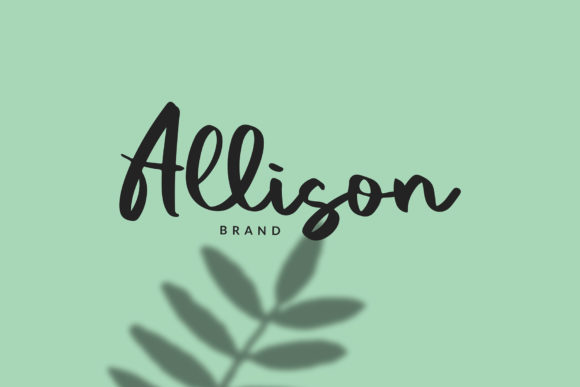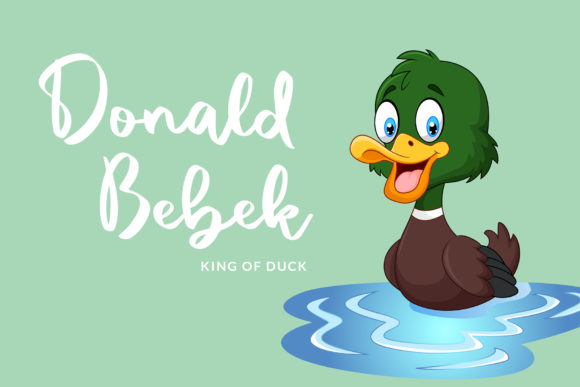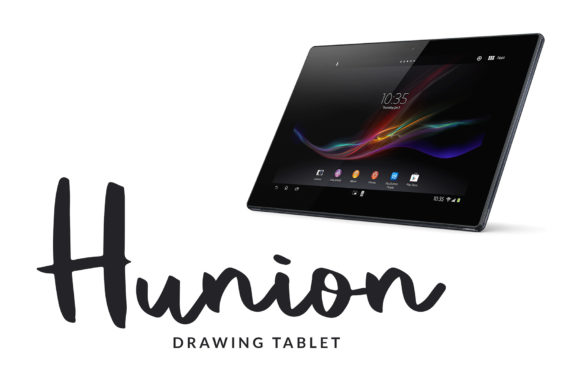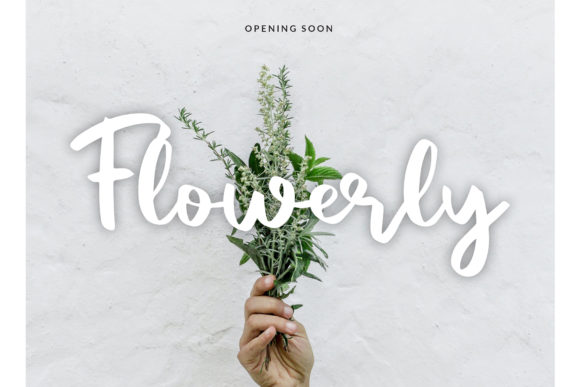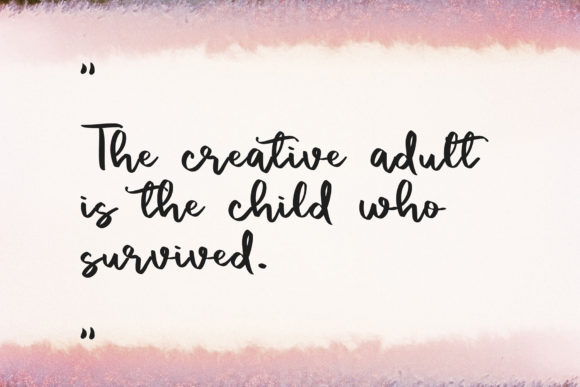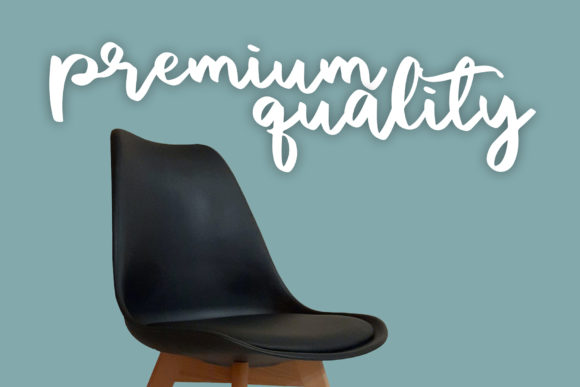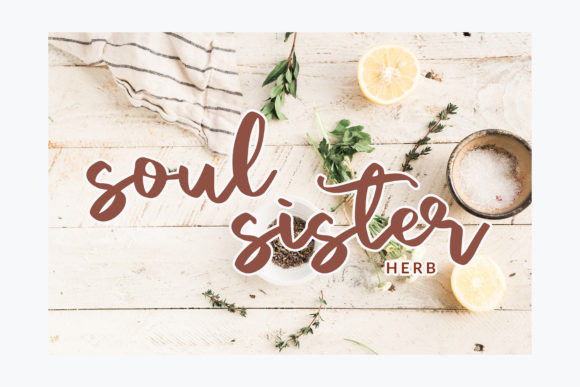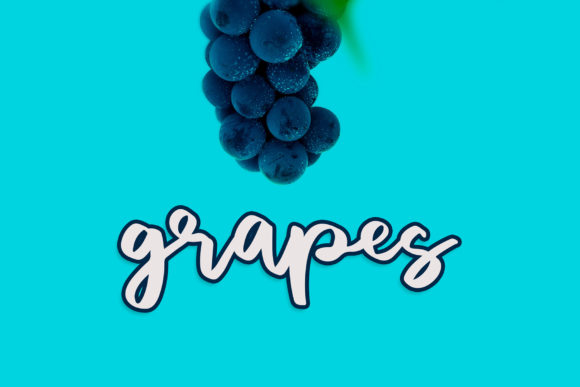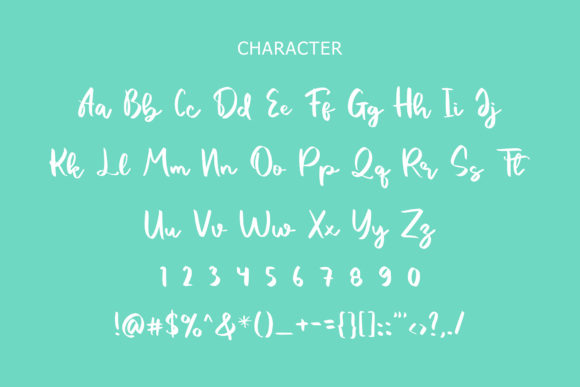
Vacation Font
About Vacation Font
Vacation is a modern, round lettered and relaxed handwritten font. It looks beautiful on a variety of designs requiring a personalized style, such as trip invitations, thank you cards, weddings, greeting cards, logos and so on.